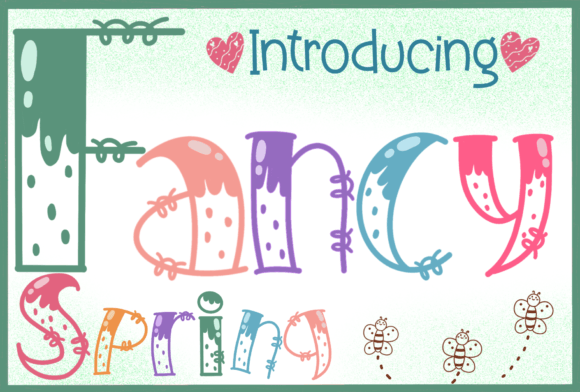
Fancy Spring: A Whimsical Display Font for Creative Projects
If you are searching for a Fancy Spring free download to add some charm to your next design, you have come to the right place. This adorable display font is designed to bring a smile to anyone's face with its playful curves and charming accents. Whether you need a Fancy Spring font download for a personal blog or a download Fancy Spring font free option for a client project, this typeface offers a unique personality that stands out in the crowded world of typography. It is a standout choice within the Display category, perfect for adding a touch of whimsy to any visual communication.
Design & Style Analysis
The visual personality of Fancy Spring is defined by its soft, rounded letterforms that evoke a sense of joy and lightheartedness. Unlike many other premium Display font options that rely on sharp edges or complex serifs, this typeface uses organic shapes to create a friendly atmosphere. The weight distribution is balanced, ensuring that the letters feel substantial yet approachable. When comparing it to other best Display fonts for use case, Fancy Spring excels in projects requiring a handcrafted feel without looking messy.
Letterforms and Curves
The character set features exaggerated loops and gentle slopes that give the text a bouncing rhythm. These specific details make it distinct from standard sans-serifs, positioning it as a true professional Fonts font for creative applications. The spacing is generous enough to prevent crowding but tight enough to maintain a cohesive block of text.
Weight and Spacing
While primarily available in a single weight, the variation in stroke width creates a dynamic texture. This makes it an excellent free Display font for Fonts collections looking to add variety. The negative space within the characters is carefully managed to ensure legibility even at smaller sizes.
Best Uses for Fancy Spring
This versatile typeface is suitable for a wide range of applications where a touch of elegance and fun is required. Below are the most effective ways to utilize this Fancy Spring commercial use-ready asset.
Fancy Spring for Logo Design
When creating a brand identity, a logo needs to be memorable. Fancy Spring for logo design provides a unique mark that can serve as the centerpiece for a boutique or lifestyle brand. Its distinctive curves allow for custom ligatures that can spell out a company name with flair.
Fancy Spring for Branding
For Fancy Spring for branding, consistency is key. Using this font across business cards, letterheads, and social media profiles creates a unified voice. It works particularly well for brands targeting a youthful or feminine demographic who appreciate a softer aesthetic.
Fancy Spring for Wedding Invitations
Couples often seek a romantic and elegant look for their big day. Fancy Spring for wedding invitations/cards/typography is an ideal choice for ceremony programs and save-the-dates. The playful nature of the font adds a modern twist to traditional wedding stationery.
Fancy Spring for Posters and Packaging
In the realm of marketing materials, attention is everything. Fancy Spring for posters/social media/packaging ensures your message pops off the shelf or screen. The bold display style captures the eye immediately, making it perfect for event flyers and product labels.
Font Pairing & Combinations
One of the most common questions designers ask is what fonts pair well with Fancy Spring? Since Fancy Spring has a strong personality, it requires a neutral partner to balance the composition. For a classic look, try pairing it with a clean serif like Playfair Display. If you prefer a modern contrast, a geometric sans-serif such as Montserrat works beautifully.
Understanding Fancy Spring font pairing is crucial for maintaining readability. You should avoid using two display fonts together, as this creates visual clutter. Instead, reserve Fancy Spring for headlines and titles, while using a simple body font for paragraphs. Some of the best font combinations with Fancy Spring include pairing it with a thin sans-serif for a delicate feel or a heavy slab serif for a retro vibe.
Finally, remember that Fancy Spring is a professional Fonts font that deserves to be treated with care. By following these guidelines, you can create stunning designs that leverage the full potential of this whimsical display typeface.